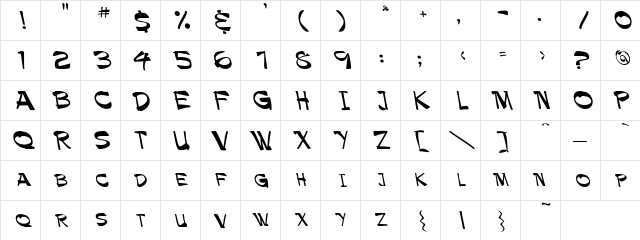
Paintbrush Leftified Regular
Complete Paintbrush Leftified Regular glyph index. Displaying only characters natively supported by Paintbrush Leftified Regular font.
Design Context for Paintbrush Leftified
Paintbrush Leftified flows with the natural rhythm of handwritten lettering, making it ideal for designs that call for warmth and personal expression.
Font Pairing: Combine Paintbrush Leftified with a simple geometric sans for maximum contrast - the tension between flowing curves and clean structure is a classic typographic pairing.
Pro Tip: Use Paintbrush Leftified for short runs of text - names, titles, or taglines. Extended body copy in script faces tires the eye quickly.